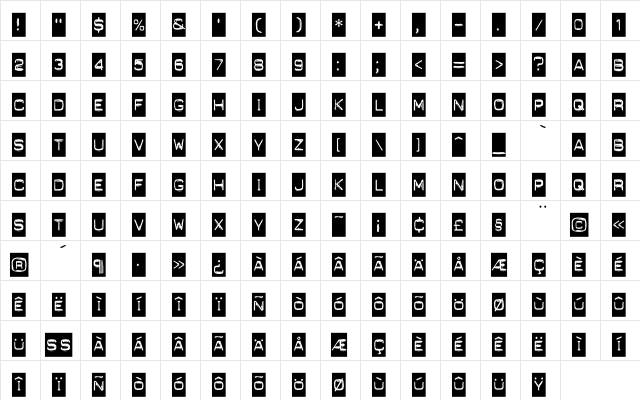
Dynamoe Regular Font Preview
Dynamoe Regular
Design Context for Dynamoe Typeface
Dynamoe is a composed and adaptable typeface that performs quietly and consistently across a wide range of design contexts.